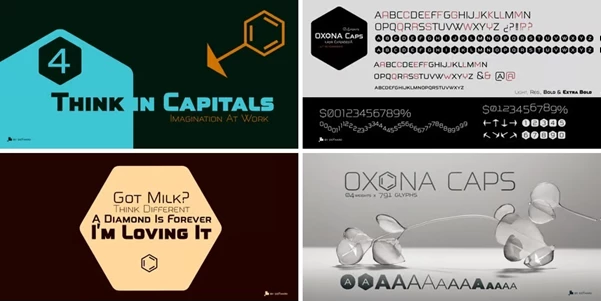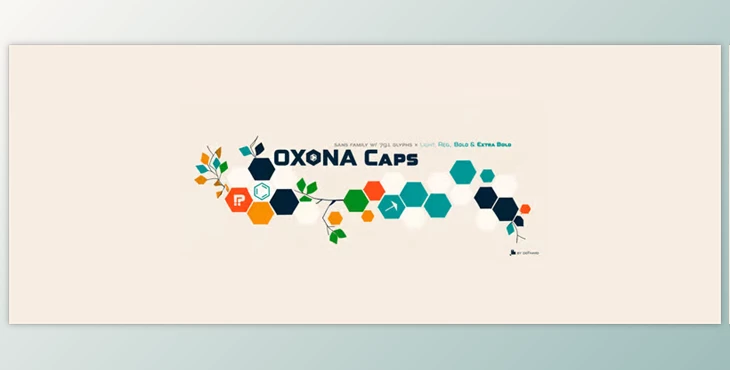
Meticulously curated caps and small caps make Oxona Caps distinct. Merged with a geometric structure, this futuristic font is effortless to read and eye-catching, making it suitable for any form of digital and print communication. Capable of conveying powerful and sophisticated messages, it excels in effective communication through strong visuals.
- Balanced and Precise Design: All letters are optimized for remarkable eye-pleasing readability to improve comprehension.
- Versatile Weights: Offers multiple foils, including Light, Regular, Bold, and Extra Bold, suiting unrestricted creative designs.
- Extensive Language Support: It uses Latin Extended – A, enabling support for more than 200 languages.
- Geometric Structure: Maintains exact proportions, strategic optical adjustments for various sizes ensure smooth reading.
- Modern and Timeless: The lack of serifs gives it a contemporary look while making it suitable for print and media.
- OpenType Features: For customization, optional style of letters are available along with fractions and maths symbols, arrows, special characters for signage and infographics.
The meticulous alignment of metrics and kerning on Oxona Caps ensures legibility as well as pleasant visual balance. Its thoughtful design, alongside the intelligent features, makes it versatile for nearly any use.